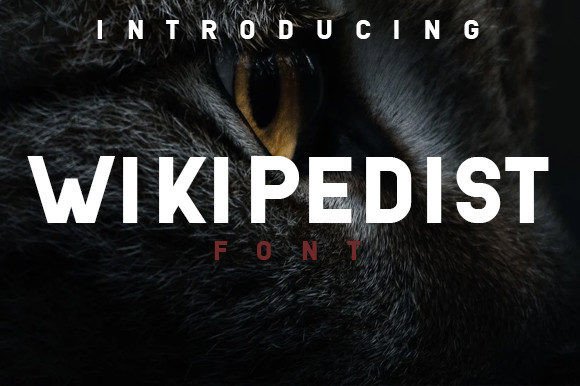
In a world saturated with bland and monotonous fonts, Wikipedist Font emerges as a beacon of creativity and distinction. This remarkable sans serif typeface breathes life into your designs, transforming them from ordinary to extraordinary. Join the ranks of discerning designers who recognize the power of a font that speaks volumes, conveying messages with elegance and impact.
With its clean lines and modern aesthetic, Wikipedist Font stands out from the crowd. Its versatile nature makes it the perfect choice for a wide range of projects, from logos and websites to social media posts and print materials. Imagine your words dancing across the page, each letter a work of art, captivating your audience and leaving a lasting impression.
Step into the realm of creative freedom with Wikipedist Font. Unleash your imagination and let your designs soar to new heights. Whether you're a seasoned professional or just starting your design journey, this font is your gateway to limitless possibilities. Embrace the beauty of typography and watch as your projects transform into masterpieces.